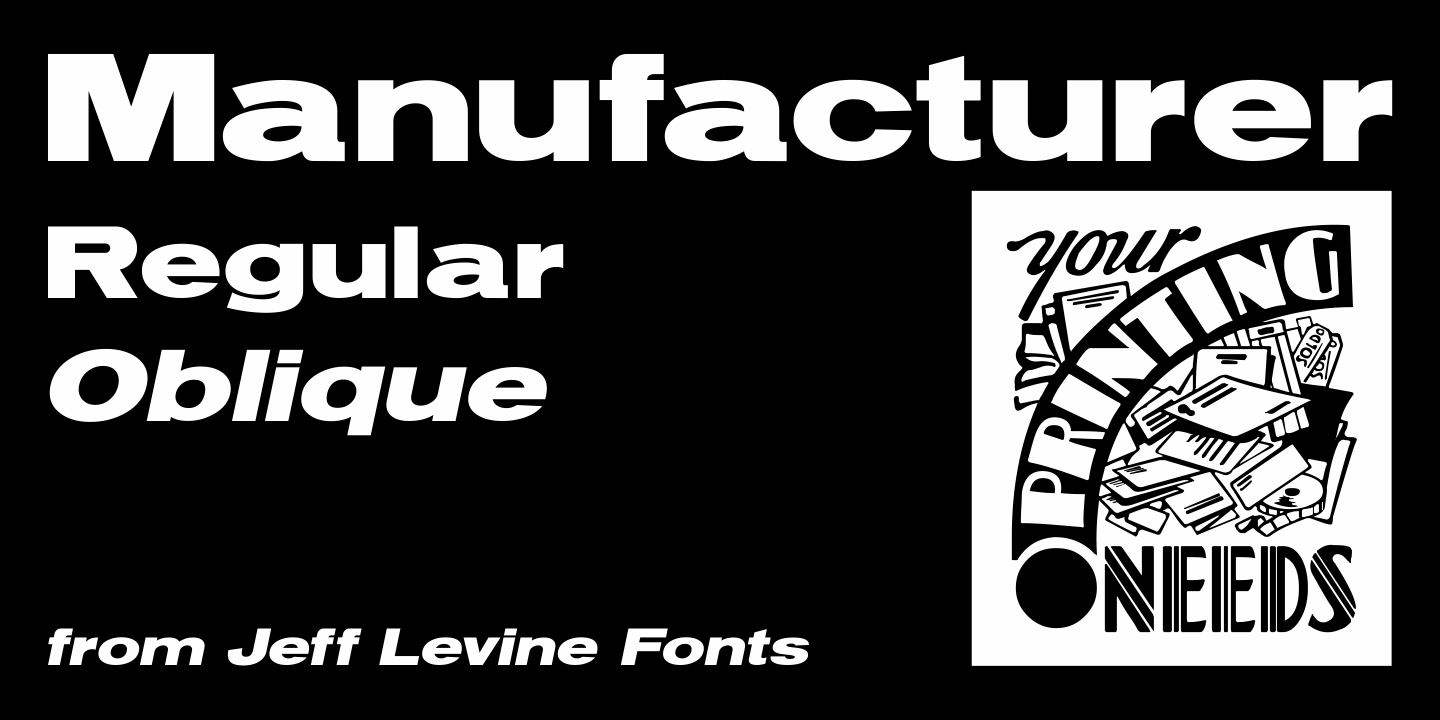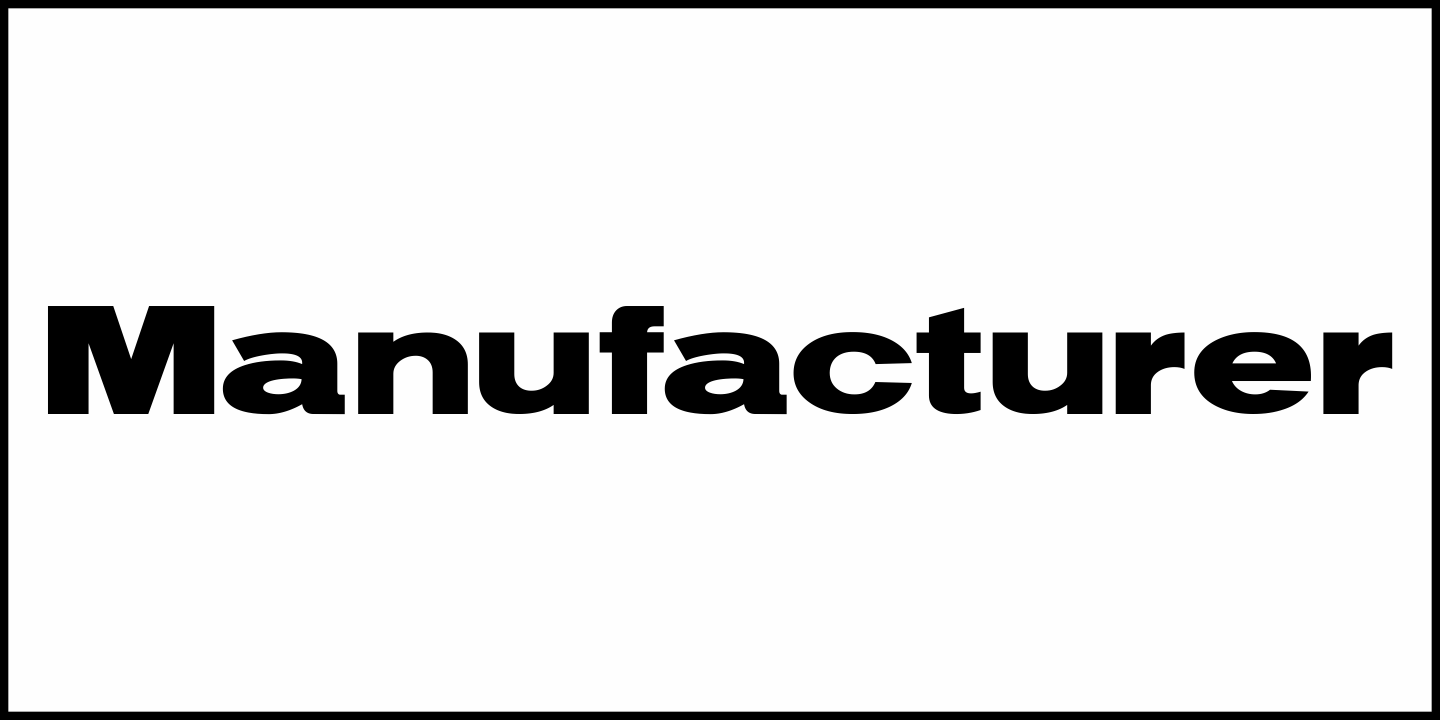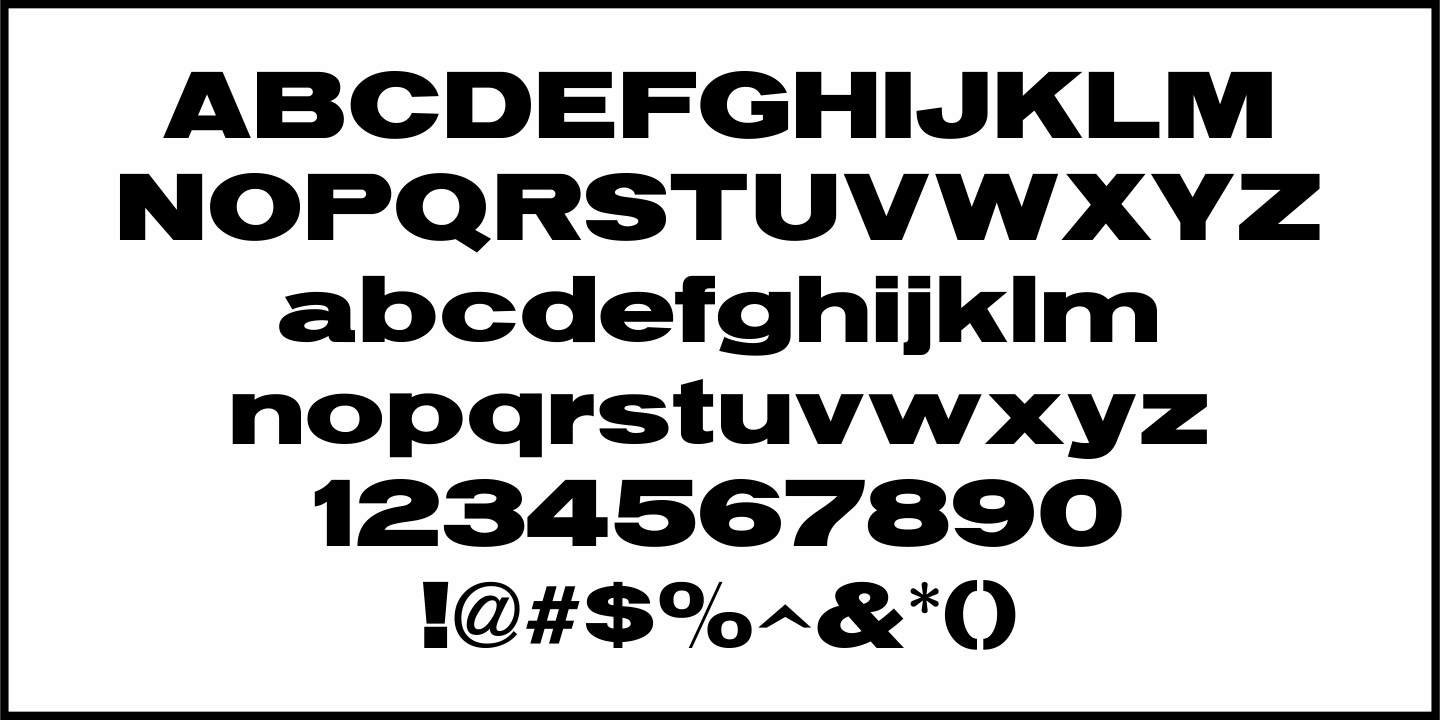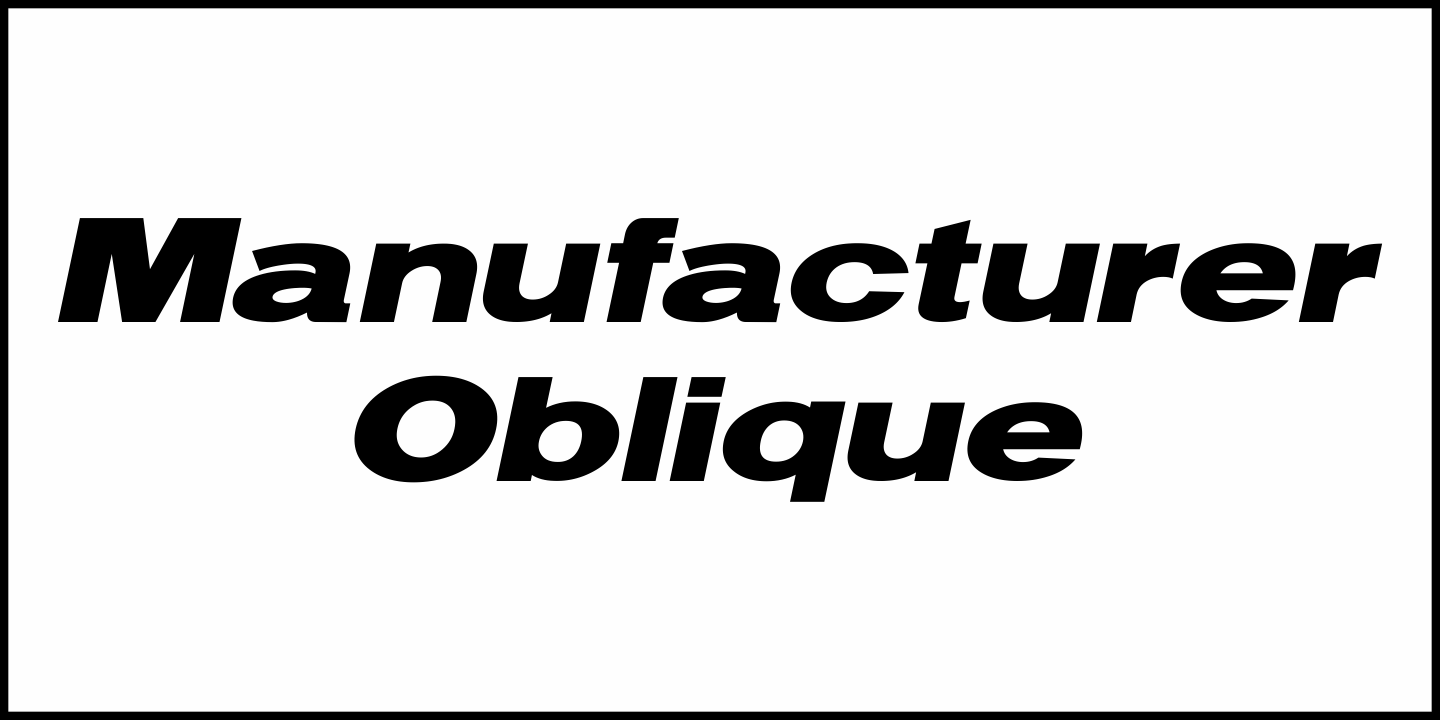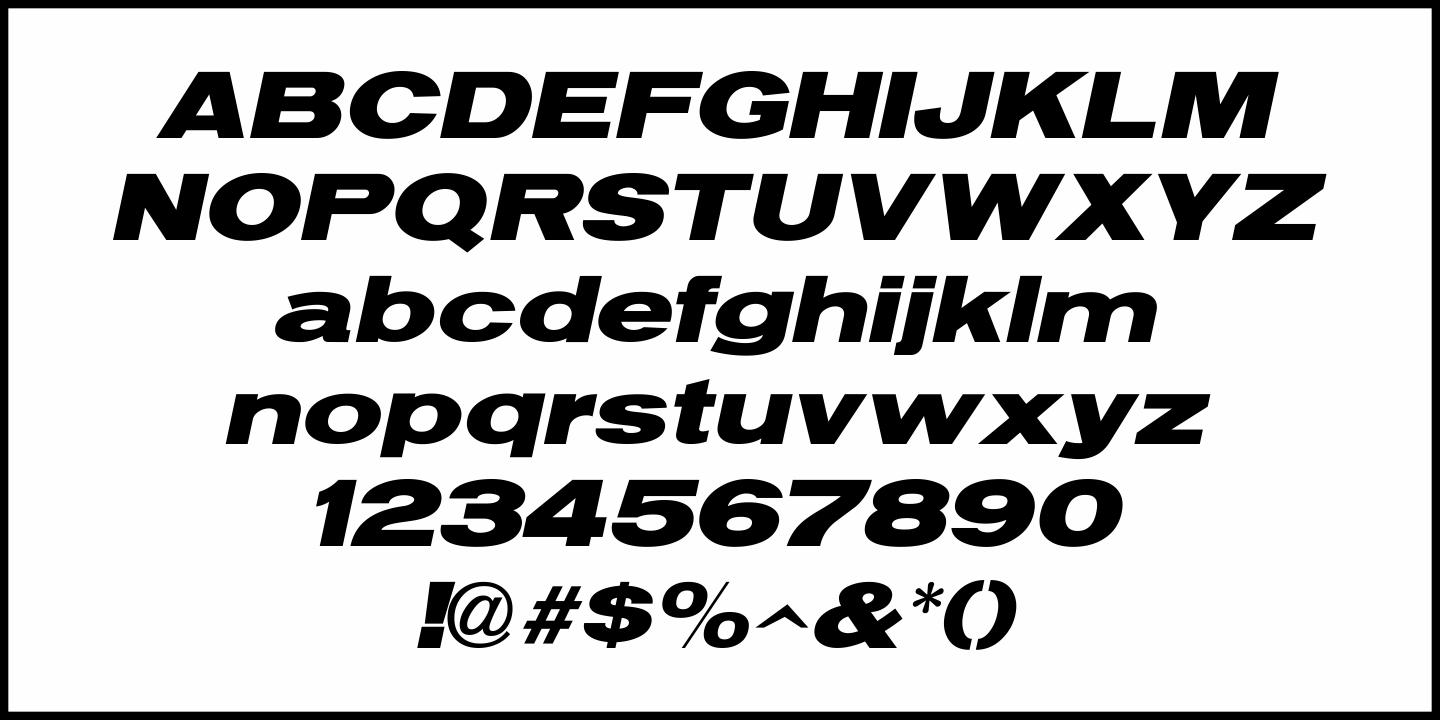
Manufacturer
Manufacturer JNL is a reinterpretation of the classic type face Venus Extra Bold Extended, and is available in both regular and oblique versions.
According to Wikipedia:
“Venus or Venus-Grotesk is a sans-serif typeface family released by the Bauer Type Foundry of Frankfurt am Main, Germany from1907 onwards. Released in a large range of styles, including condensed and extended weights, it was very popular in the early-to-mid twentieth century. It was exported to other countries, notably the United States, where it was distributed by Bauer Alphabets Inc, the U.S. branch of the firm.”